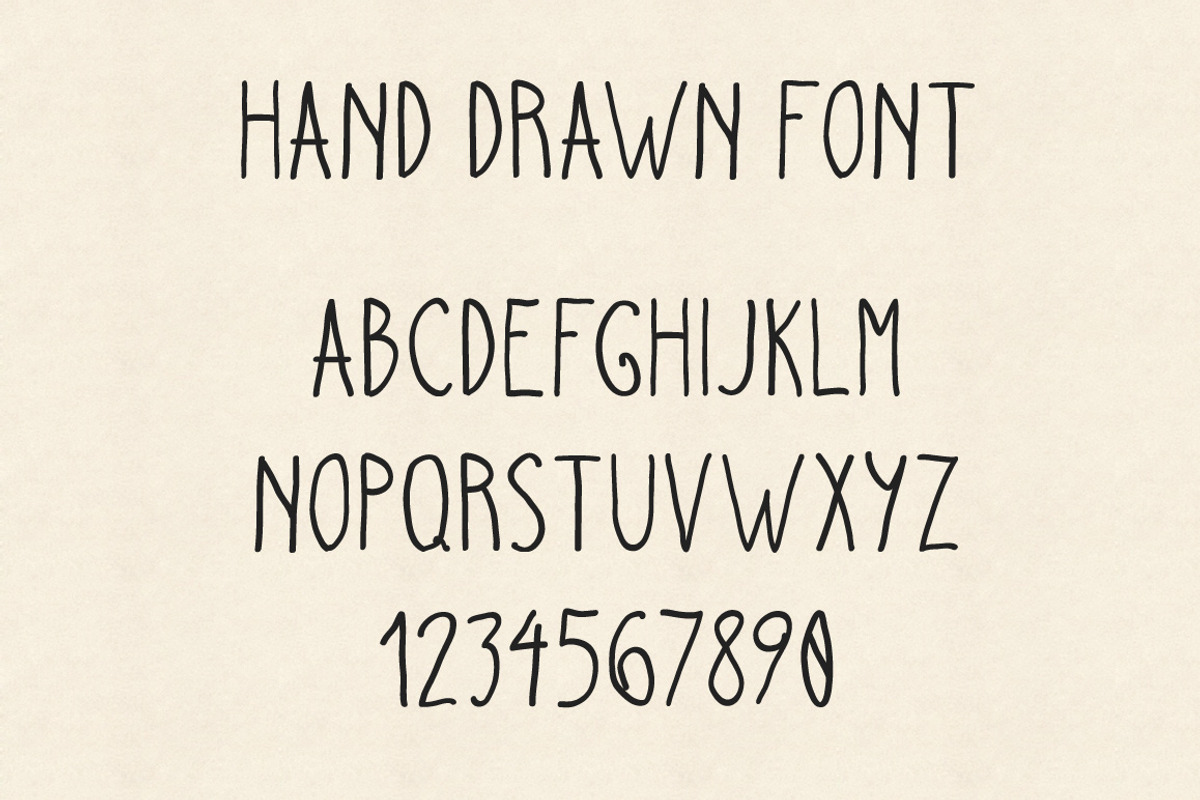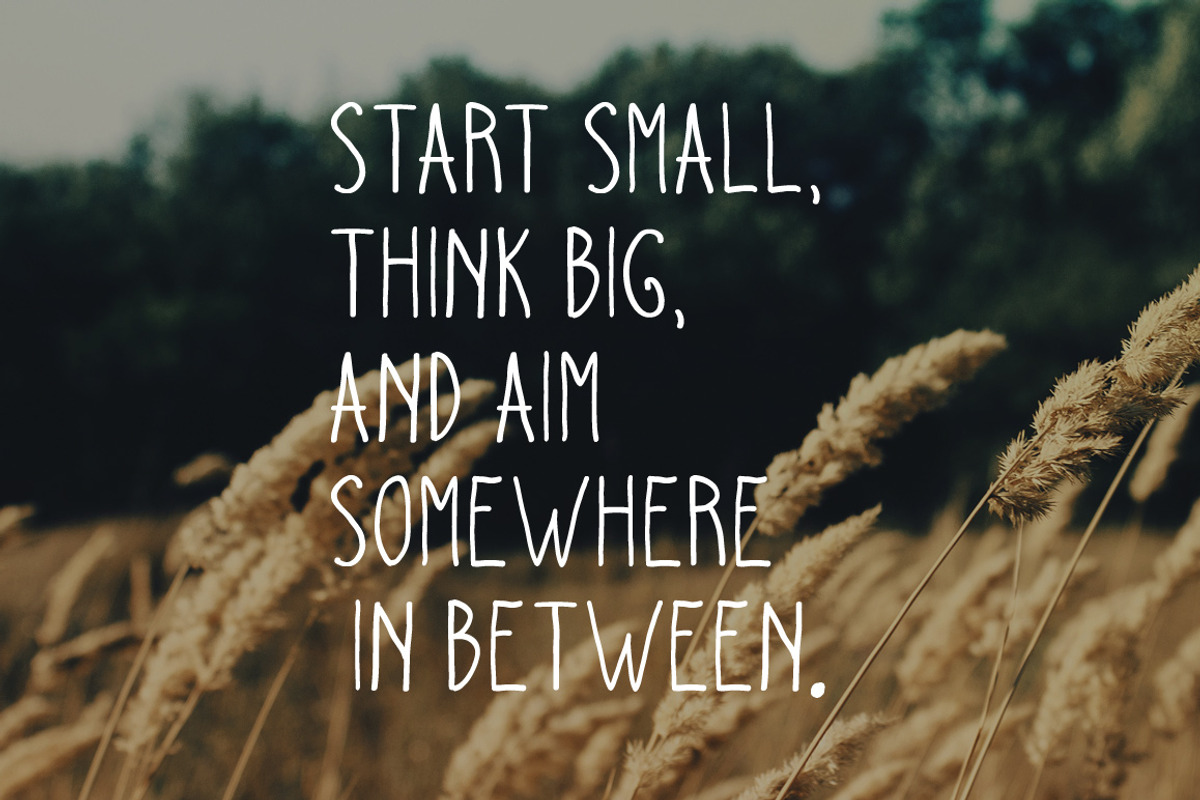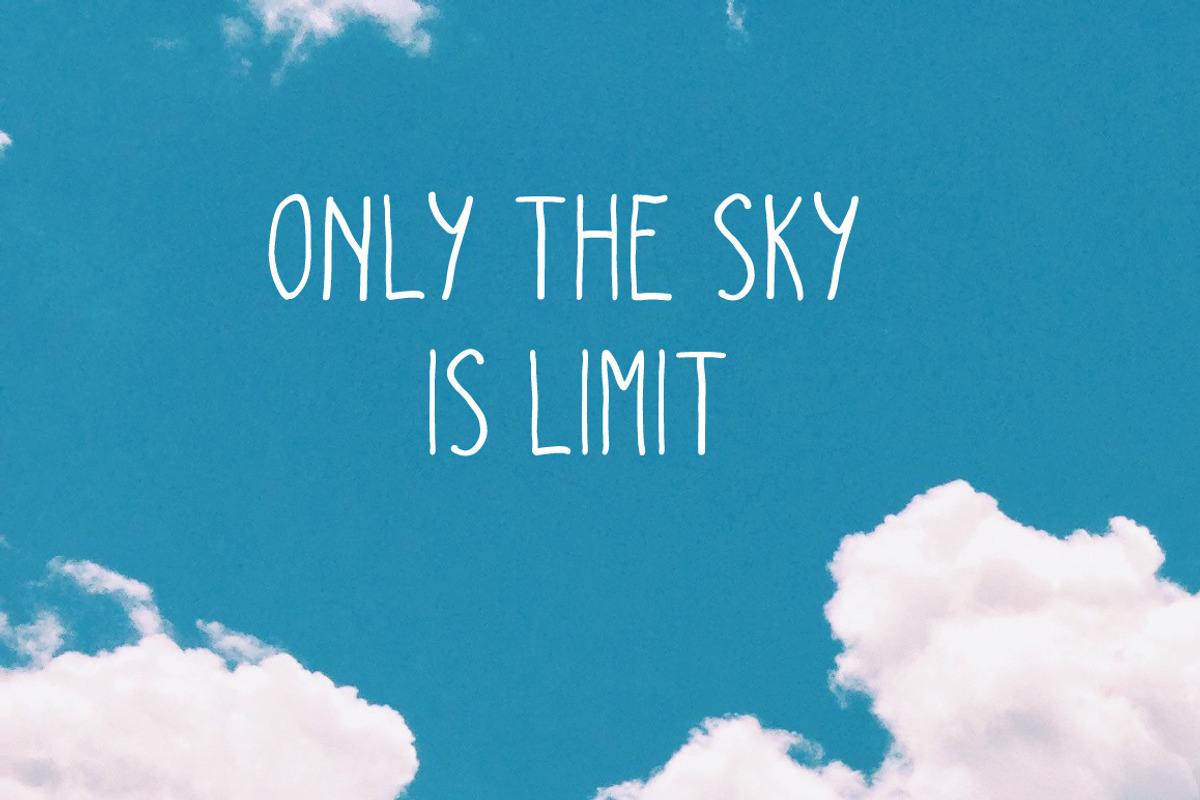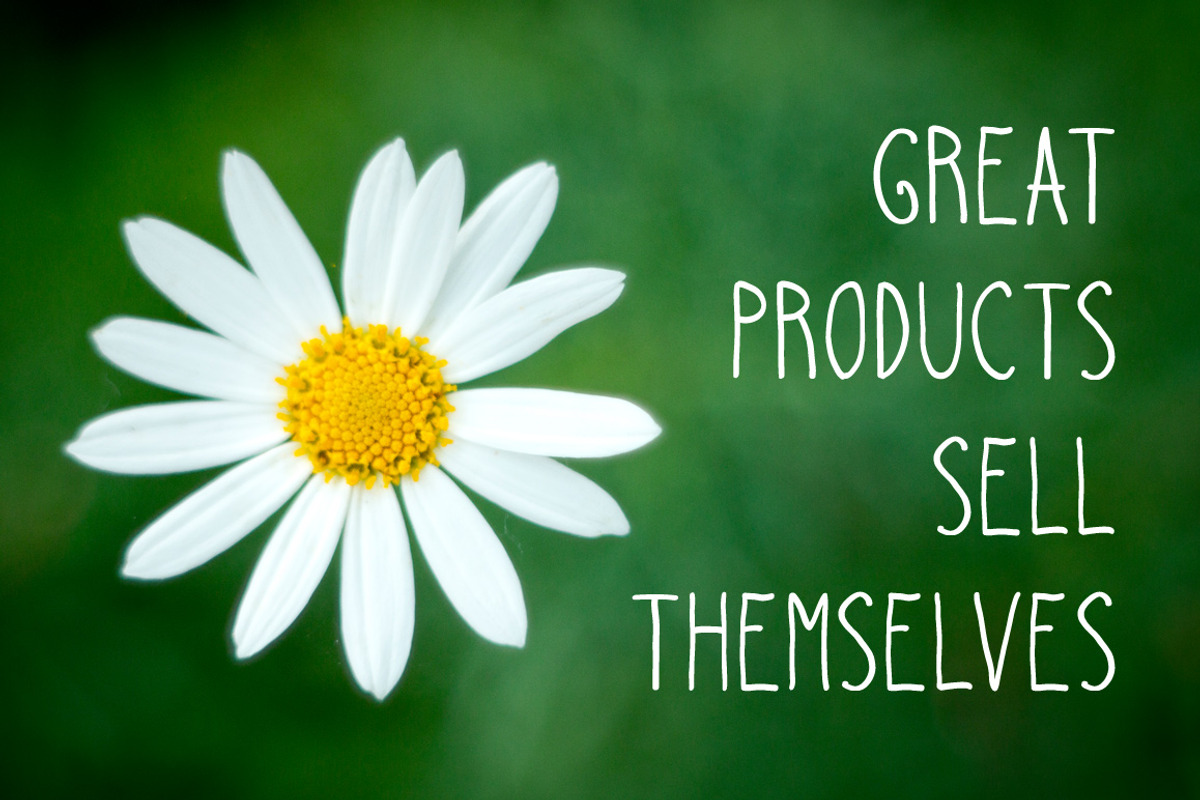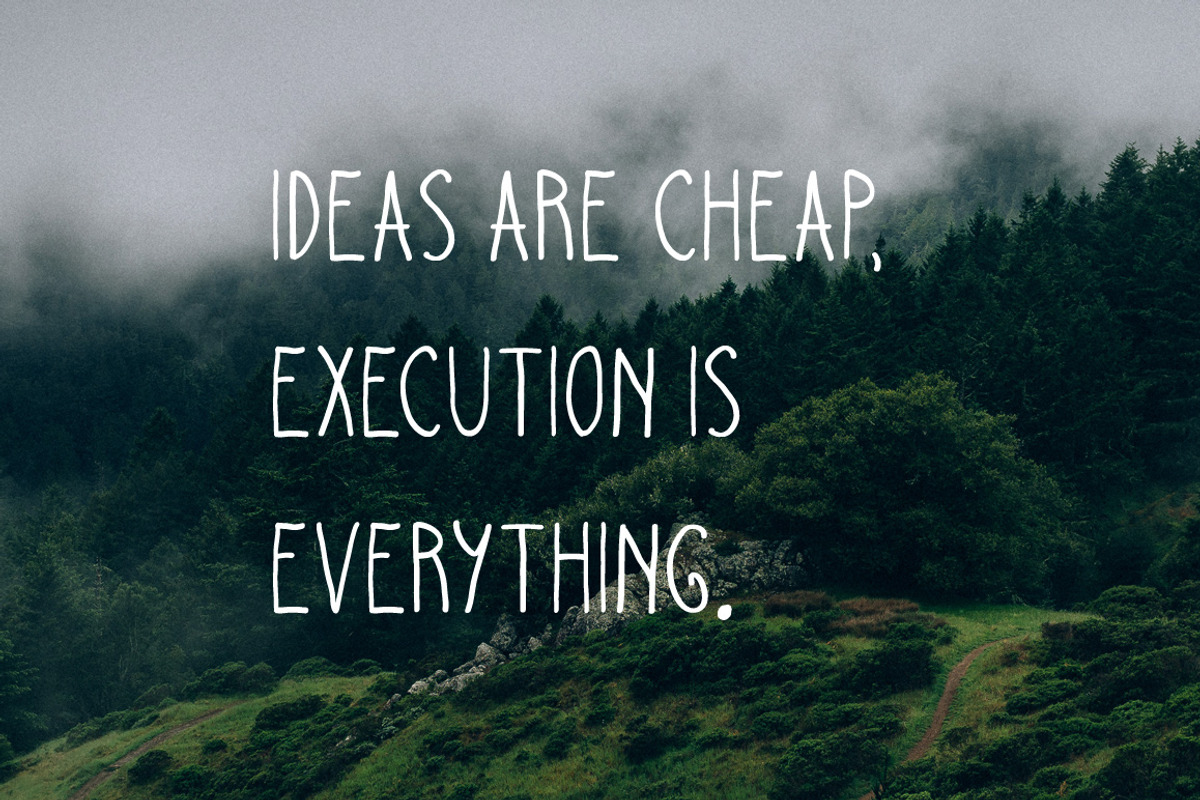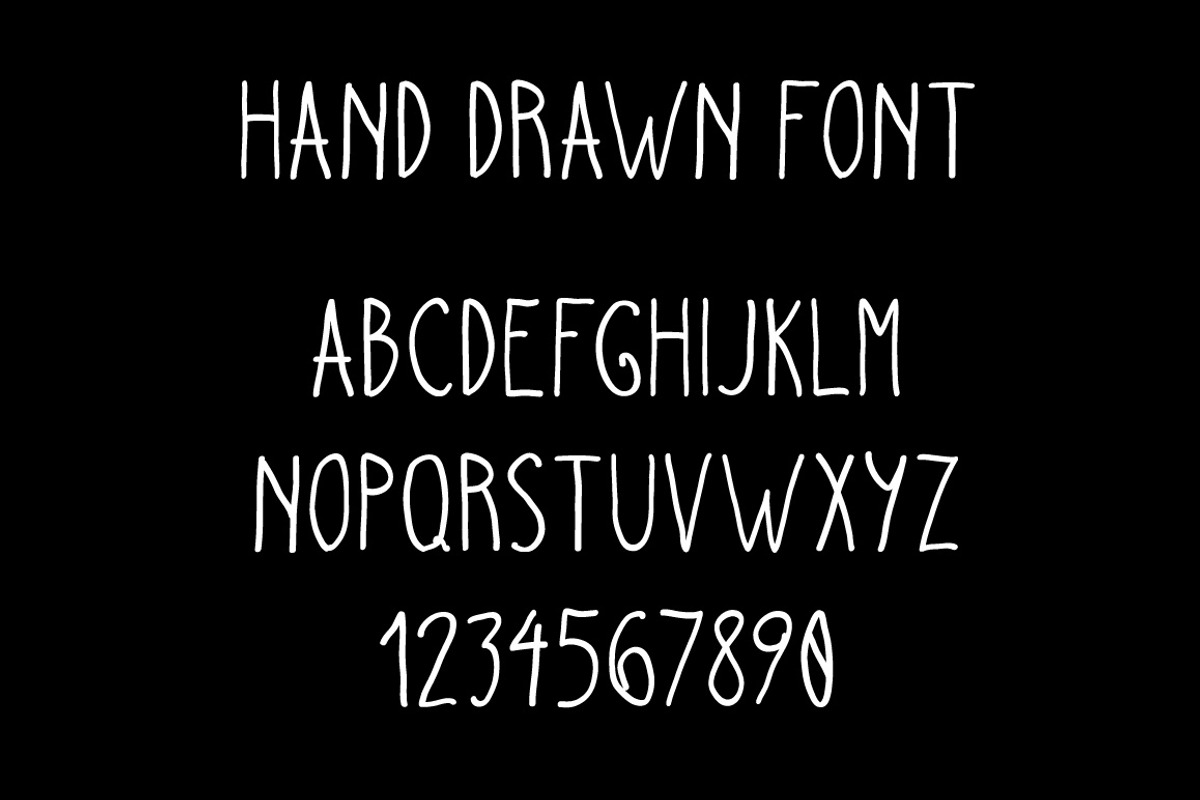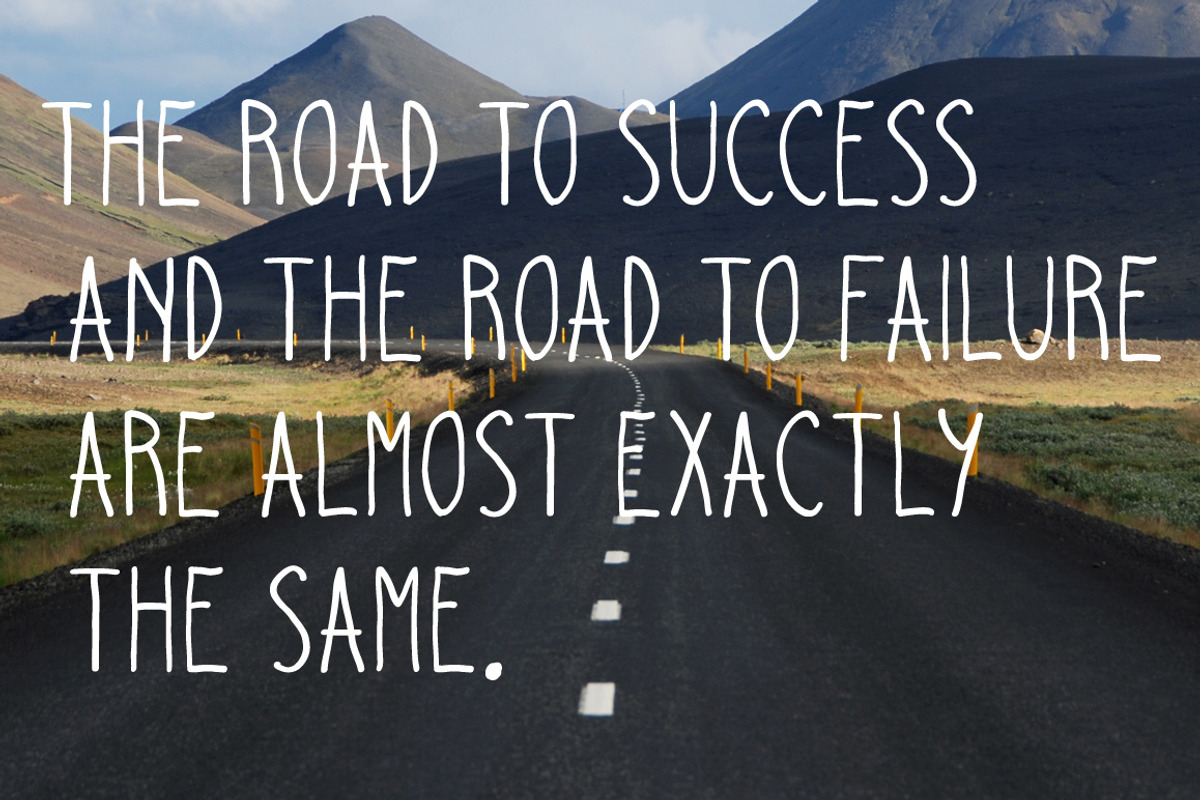
Hand Drawn Font
Hand Drawn Font by vladocar is a font selected for branding, posters, packaging, typography.
Why Hand Drawn Font is worth a look
Hand Drawn Font by vladocar fits naturally into Branding, posters, packaging, typography.